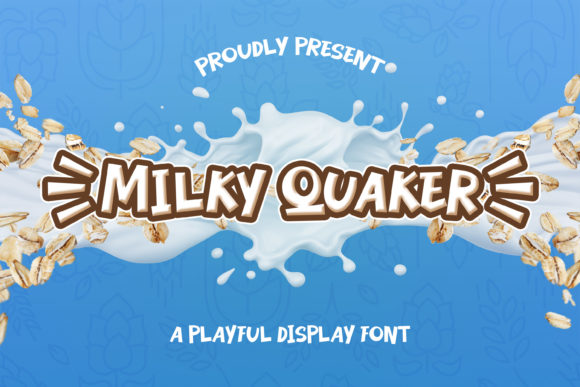
In search of a font that dances with elegance and captivates your audience? Cast your eyes upon Milky Quaker, a display font that's as playful as it is versatile. Its thick, bubbly letters exude a sense of joy and whimsy, injecting life into any design.
Milky Quaker's playful nature makes it an ideal choice for cartoon-inspired designs, children's games, and any creation seeking a touch of enchantment. The font's organic, hand-drawn style adds a personal touch, evoking a sense of warmth and approachability.
But Milky Quaker's appeal is not limited to the realm of whimsy. This font's versatility extends to a wide range of design applications, from logos and branding to posters and social media graphics. Its bold, attention-grabbing presence commands attention, ensuring your message cuts through the noise and leaves a lasting impression.
Whether you're crafting a captivating children's book, designing a playful product label, or creating a whimsical social media campaign, Milky Quaker is your font-tastic companion. Its playful spirit has the power to transform ordinary designs into extraordinary expressions of creativity.
Beyond its visual appeal, Milky Quaker holds a deeper significance. Its name, inspired by the gentle nature of Quaker oats, symbolizes a commitment to quality and reliability. Just as Quaker oats provide nourishment and sustenance, Milky Quaker provides design with a foundation of excellence.
So, embrace the playful charm of Milky Quaker and let your creativity run wild. Experience the joy of crafting designs that captivate and inspire, leaving an indelible mark on the hearts and minds of your audience.